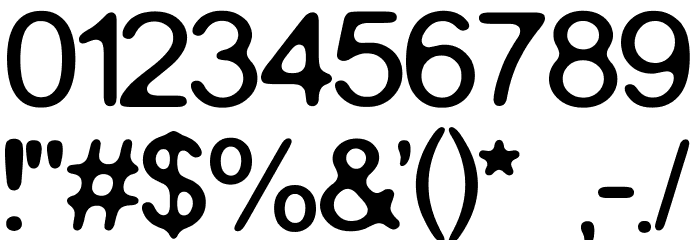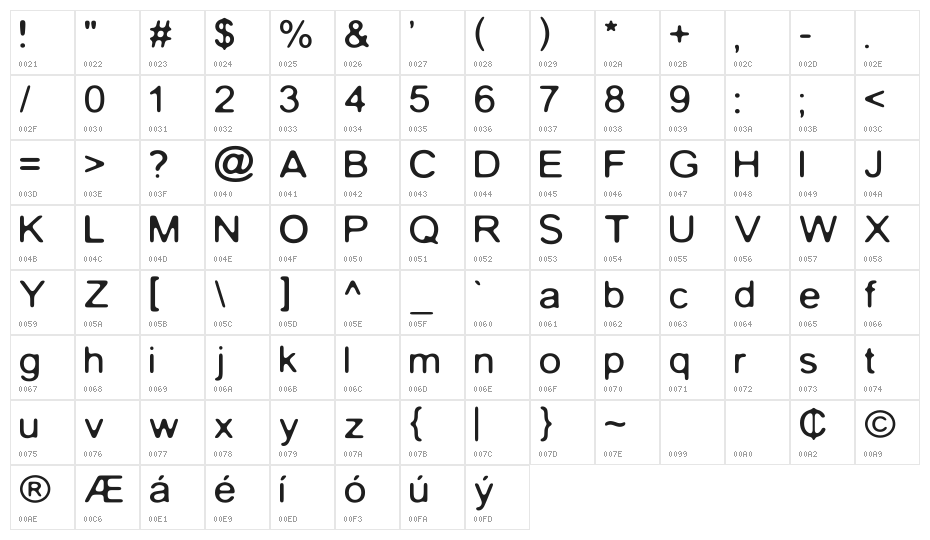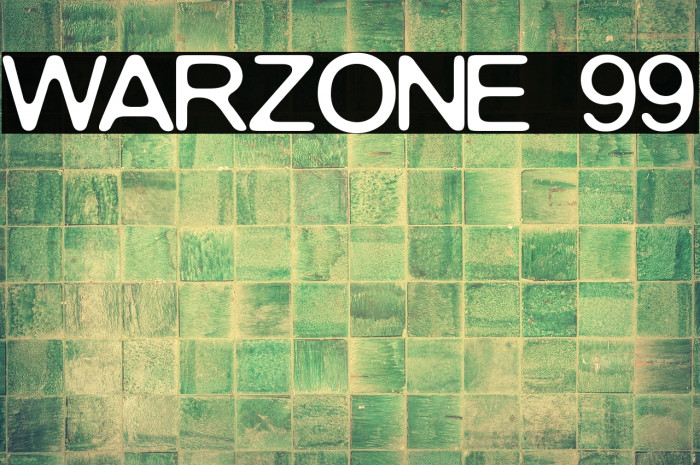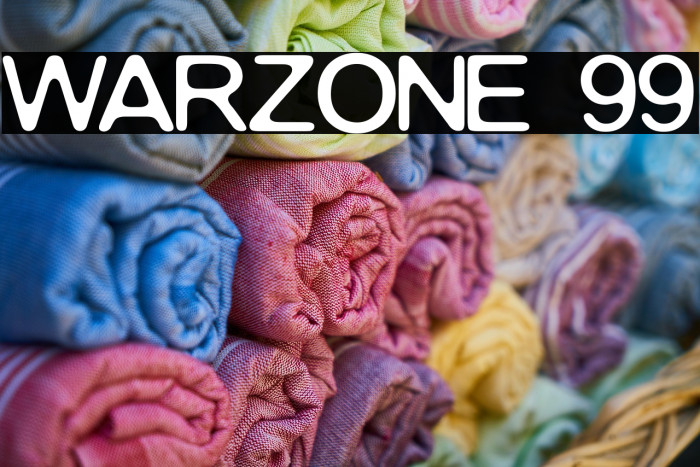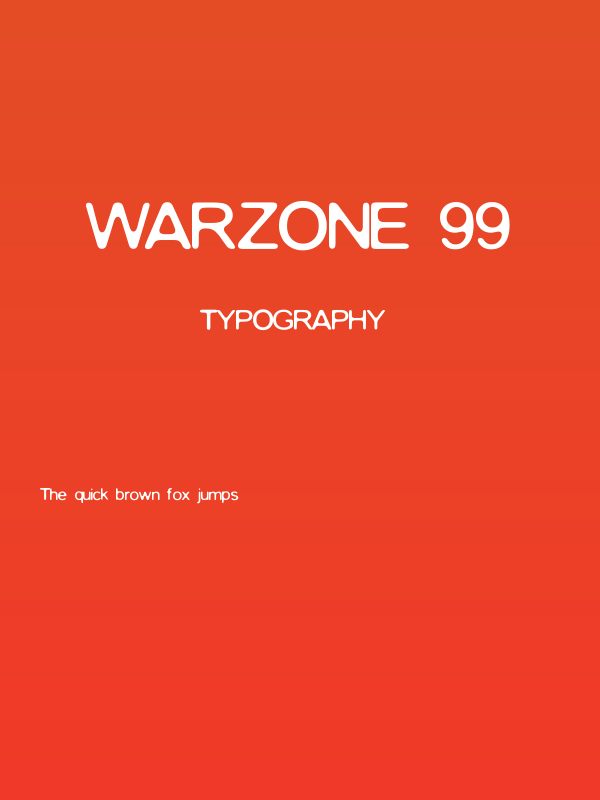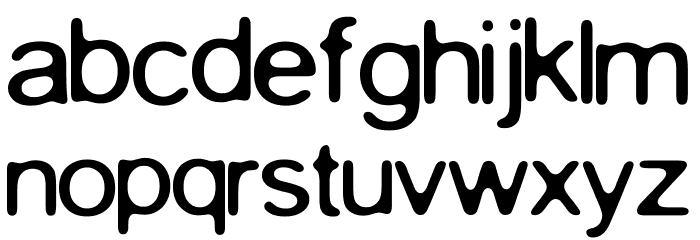
WARZONE 99 Font
WARZONE 99 Description
This font features a bold and rounded style, characterized by its smooth curves and uniform stroke width. The letters are evenly spaced, providing a clean and modern appearance. The uppercase and lowercase letters maintain a consistent design, with rounded edges that give a friendly and approachable feel. The numerals and special characters follow the same design principles, ensuring a cohesive look across all elements. This font is versatile, suitable for both digital and print media, and can be used to convey a sense of modernity and simplicity.